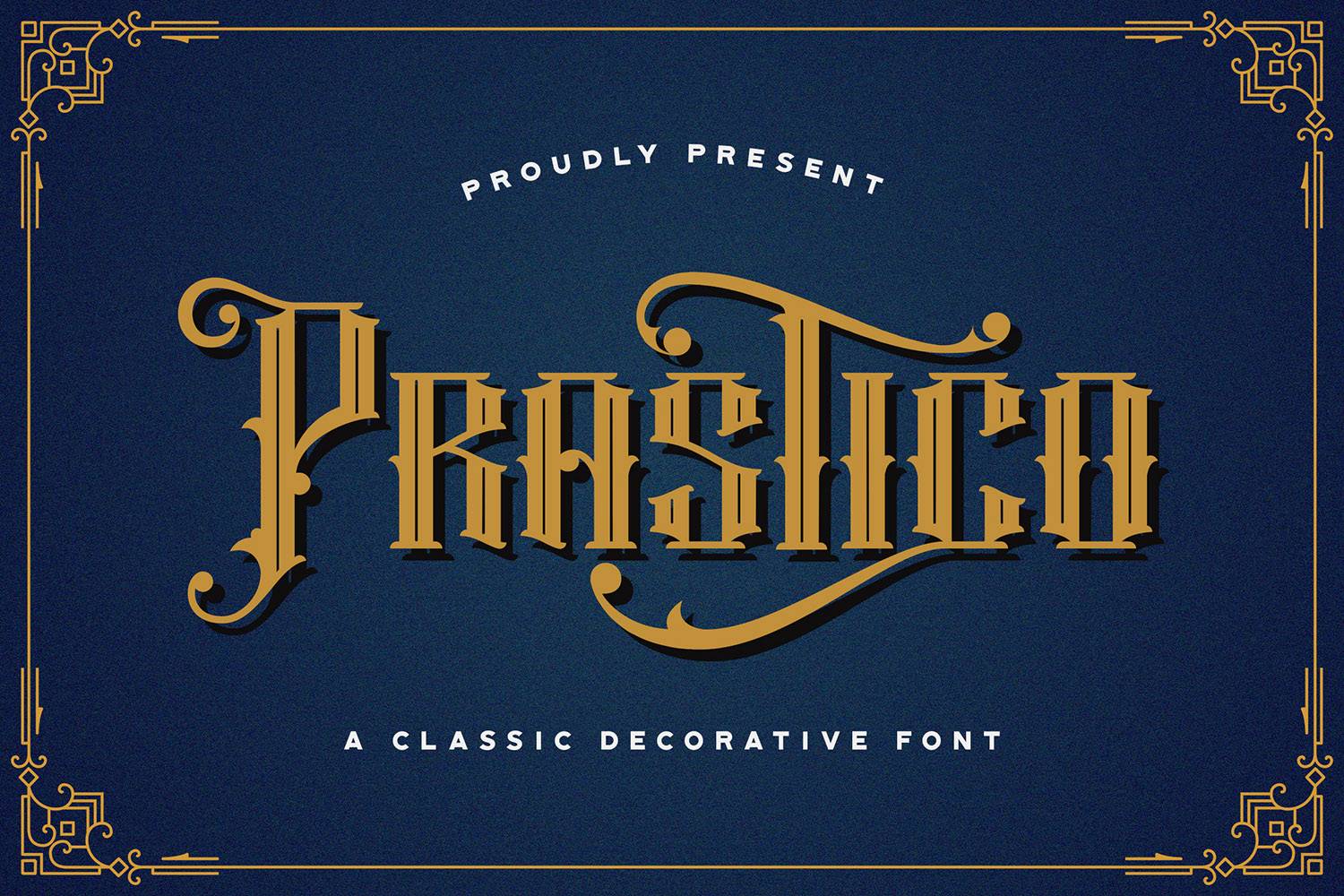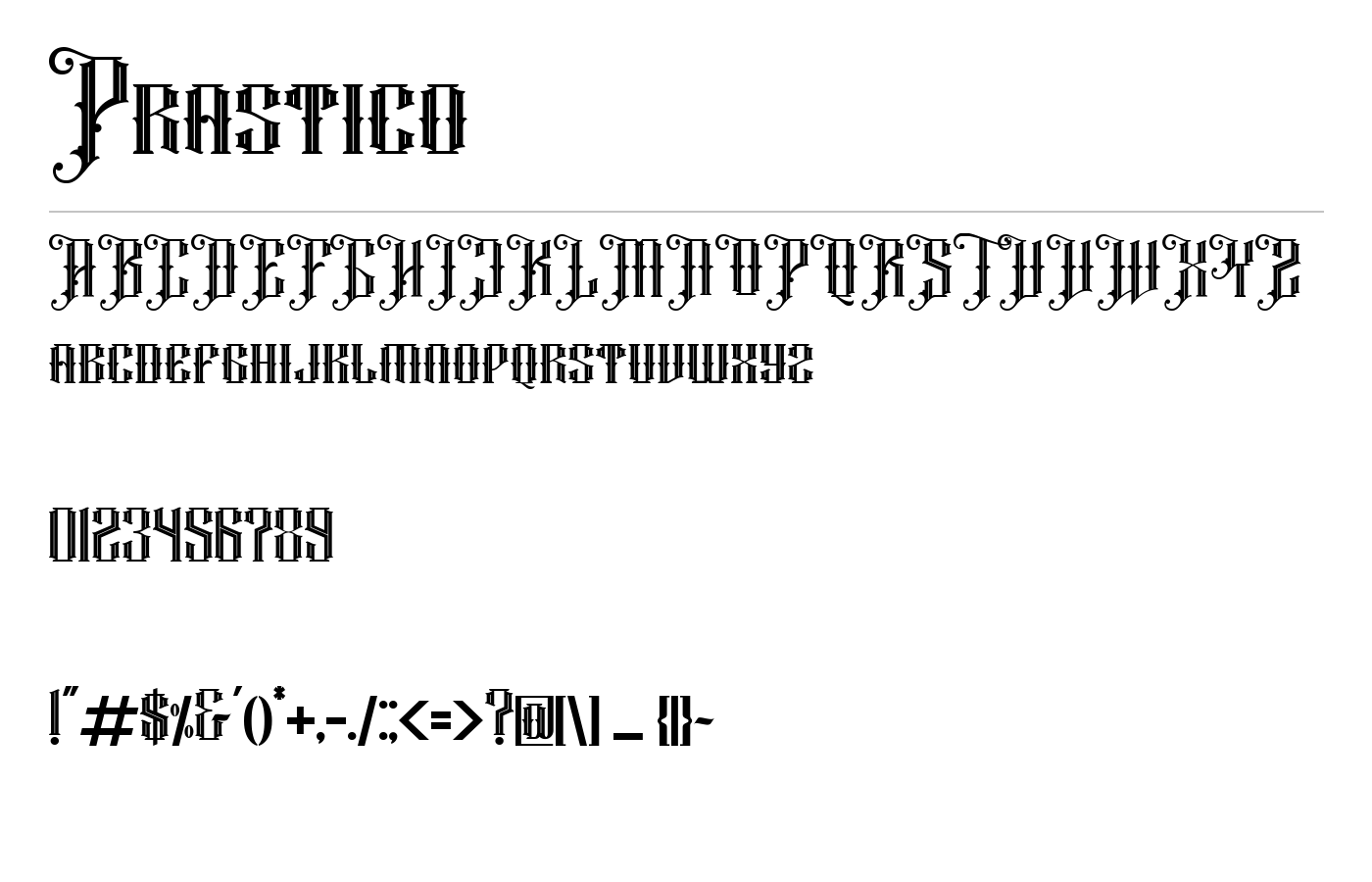
Prastico is a bold, condensed blackletter-style font with intricate, sharp serifs and high contrast strokes that give it a strong, Gothic feel. Its ornate capitals and condensed shapes make it perfect for dramatic headlines, vintage branding, and projects that want to evoke a historic or medieval atmosphere. This distinctive font works best in display settings where its elaborate details can stand out and create a powerful visual impact.
Prastico Font
About Prastico Font